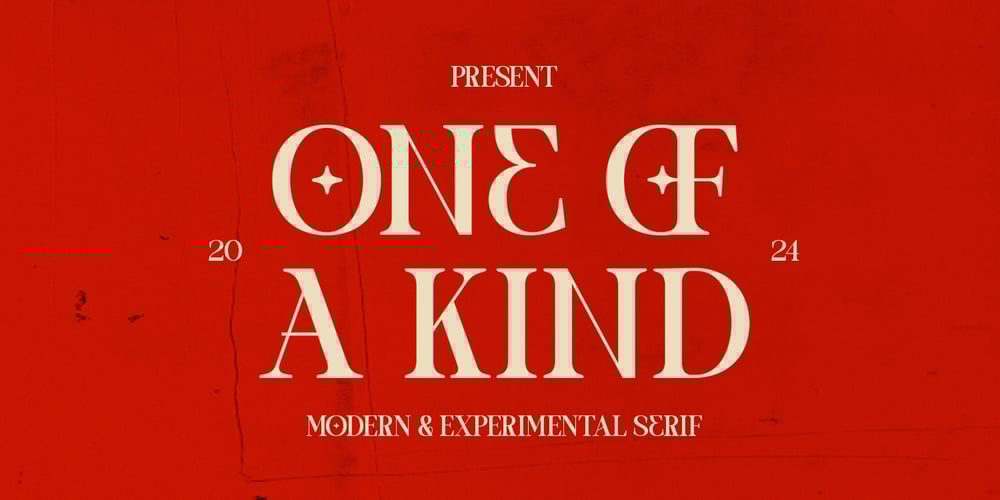
One of a kind Modern Experimental Serif Font Family was designed by Yusilo Oktaprima Ardani and published by Taboja Studio. One of a kind Modern Experimental Serif contains 1 styles and family package options. One of a kind is modern experimental serif typeface, A modern and experimental serif font is a unique blend that combines traditional serif elements with a touch of modernity and innovation. These fonts possess classical serif characteristics while showcasing experimental elements that set them apart from conventional serif fonts.Their design might incorporate variations in letter proportions, unconventional serif shapes, and attention-grabbing details such as sharp angles or bolder curves. Fonts of this nature often exude a more eccentric, innovative, and captivating vibe. This font will add a special touch to your designs and captivate viewers.One of a kind Features: Regular Uppercase And Lowercase Alternates And Ligatures Numerals & Punctuation Accented characters Multilingual Support Unicode PUA Encoded While using this product, if you encounter any problem or spot something we may have missed, please don’t hesitate to drop us a message. We’d love to hear your feedbacks in order to further fine-tune our products.Stay creative and have a wonderful day.